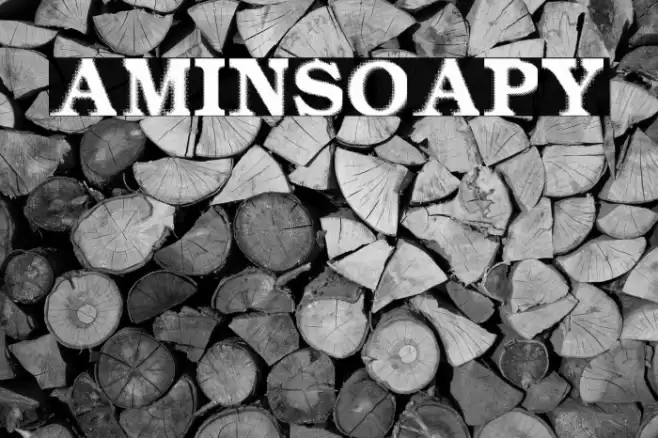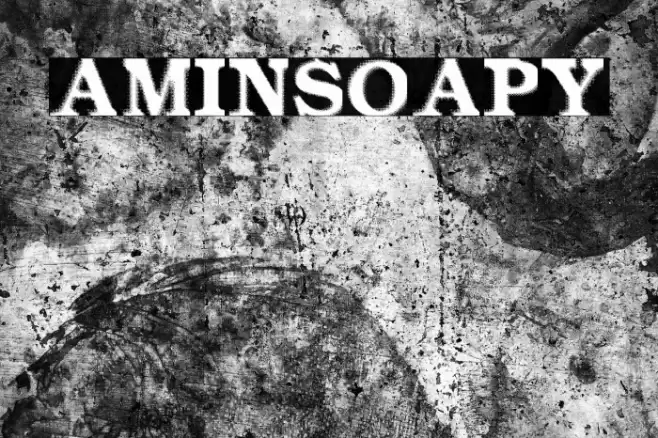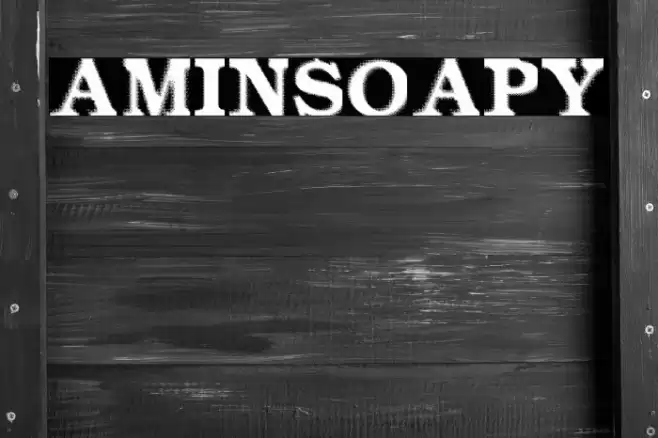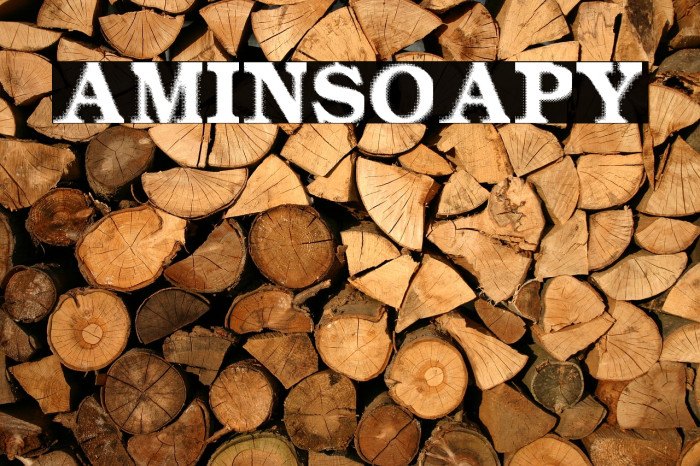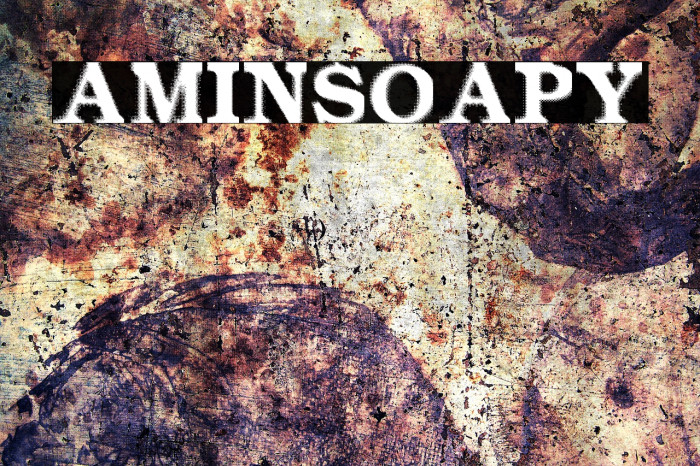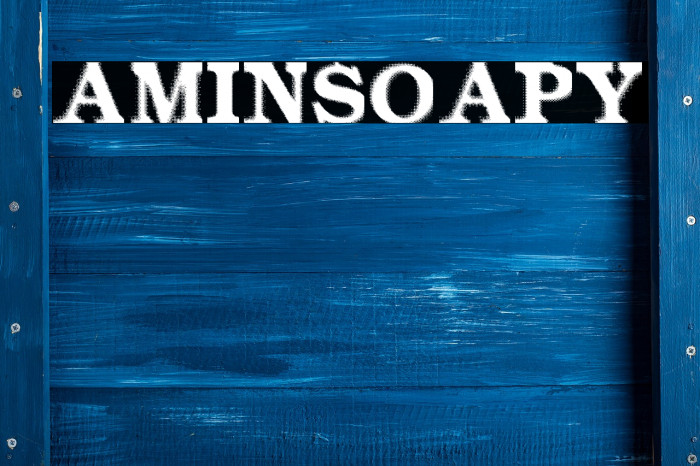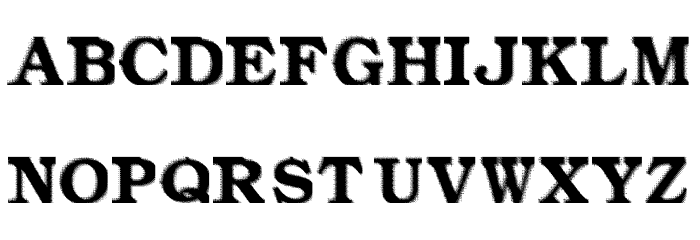
Amin_Soapy Font
Amin_Soapy Description
This font features a bold and impactful serif style with a strong presence. The characters are well-defined with thick strokes and prominent serifs, giving it a classic and authoritative appearance. The uppercase letters are uniform in height, and the overall design conveys a sense of tradition and reliability. The font's boldness makes it suitable for headlines and titles, where a commanding and professional look is desired. The spacing between characters is balanced, ensuring readability while maintaining its bold aesthetic.
A bold serif font with strong, traditional characteristics from Uncategorized fonts.
- Proposed Projects: Ideal for use in headlines, book covers, posters, and branding materials where a classic and authoritative look is needed.
- Overall Style: Classic